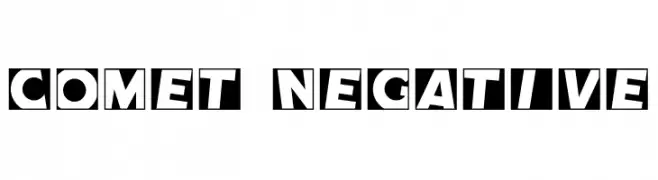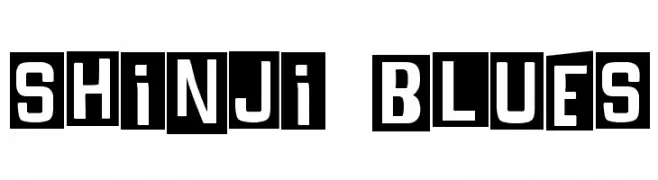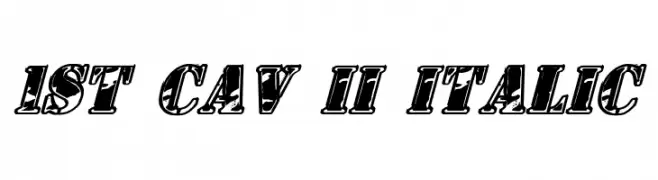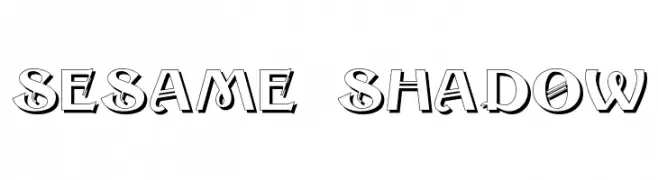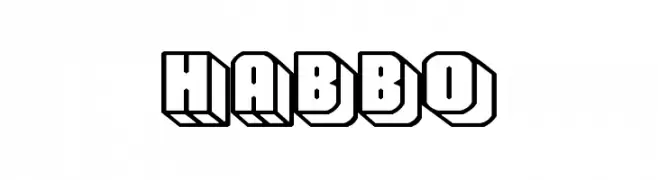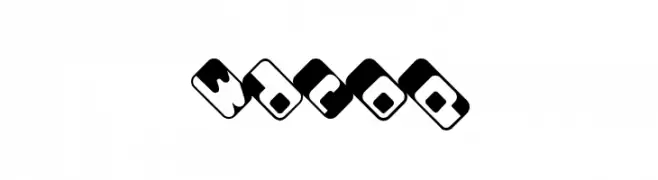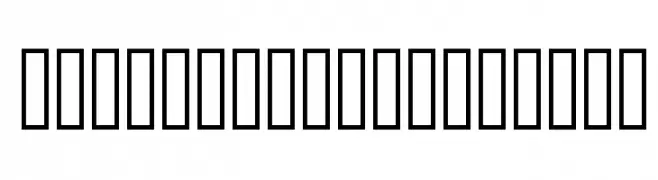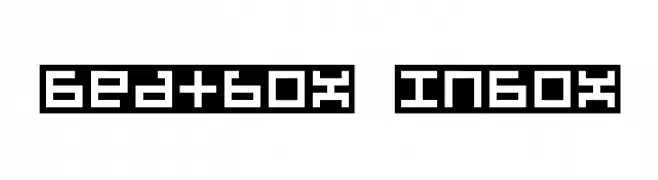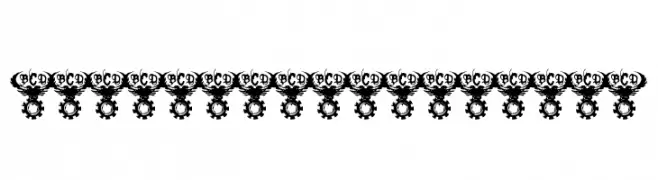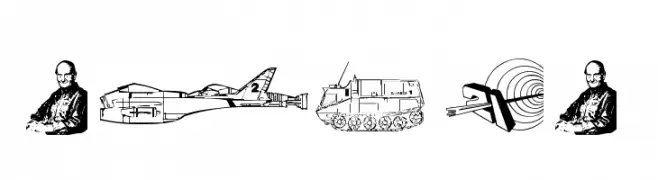
( Fonts by Harold Lohner - www.haroldsfonts.com )
A bold, playful font with high contrast and unique negative space design.
( Fonts by Manfred Klein - manfred-klein.ina-mar.com )
A bold, artistic font with a cut-out style and high contrast, ideal for impactful designs.
A bold, italicized font with thick outlines and a dynamic, retro-modern style.
( Fonts by Dieter Steffmann )
Bold, playful font with a distinctive shadow effect for a three-dimensional look.
( Fonts by Iconian Fonts - Daniel Zadorozny )
A bold, futuristic font with a shadow effect for a three-dimensional look.
( Fonts by Laurent Mouy )
A bold, geometric font with a playful, modern aesthetic and strong visual impact.
( Fonts by www.houseoflime.com )
Ornamental display font with illustrated egg motifs for each character.
( Fonts by www.kuzumi.net - Dust@fonts )
A minimalist grid of vertical lines with a modern, structured appearance.
( Fonts by Emil Bertell - www.fenotype.com )
A modern, geometric font with characters enclosed in circular shapes, ideal for tech-inspired designs.
A bold, outlined font with a modern, geometric style.
A bold, shadowed Blackletter style font with dramatic, angular lines.
( Fonts by Steve Ferrera )
Science fiction-themed pictogram and icon set with technical illustrations.
( Fonts by Emerald City Fontwerks )
Ornate crown and coronet illustrations in a vintage style.
( Fonts by Maelle.K - Thomas Boucherie )
Expressive ghost-themed dingbat font with various smiley faces.
( Fonts by Cumberland Fontworks - http://www222.pair.com/sjohn/fonts.htm - S. John Ross )
A decorative knotwork font with bold, intertwining lines and geometric shapes.
( Fonts by Manfred Klein - manfred-klein.ina-mar.com )
Decorative font with Greek mythology illustrations for each character.
( Fonts by Manfred Klein - manfred-klein.ina-mar.com )
A decorative dingbat set with stars, bursts, arrows, and geometric icons.
( Fonts by bob istheowl http://luc.devroye.org/bobistheowl.html )
Portrait-based decorative dingbat font with high-contrast illustrations.
( Fonts by Emerald City Fontwerks )
Illustrative font with mythological figures as glyphs.
( Fonts by www.aenigmafonts.com )
Ornamental, symmetrical tile-patterned decorative font.